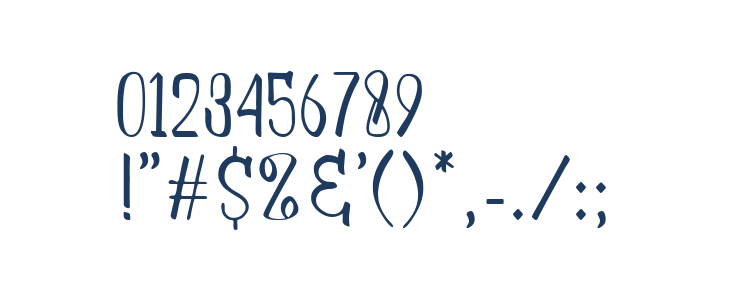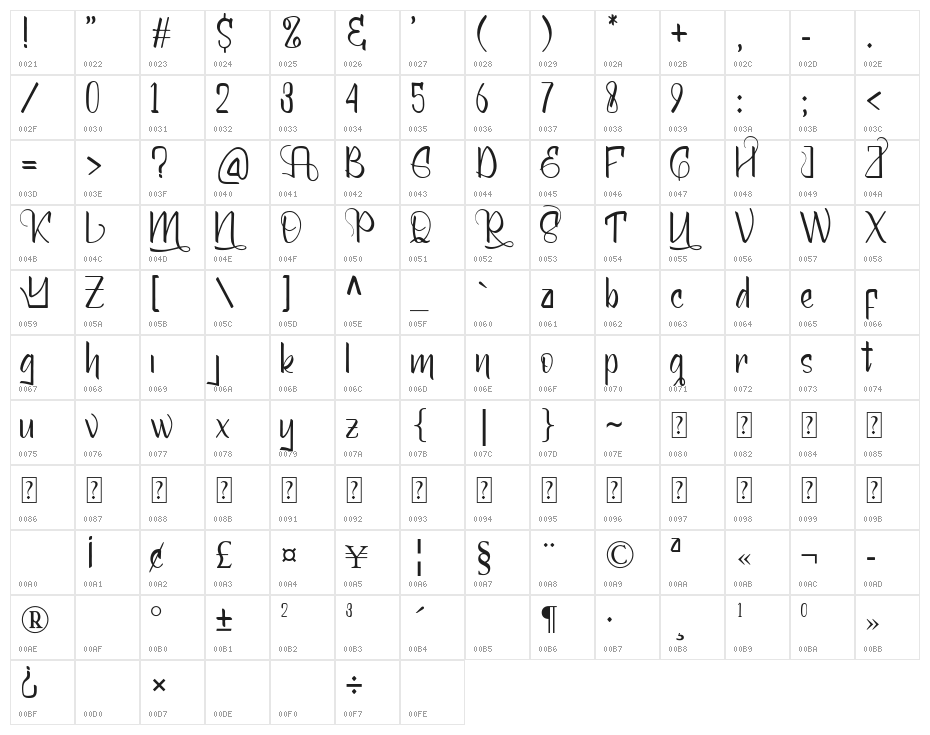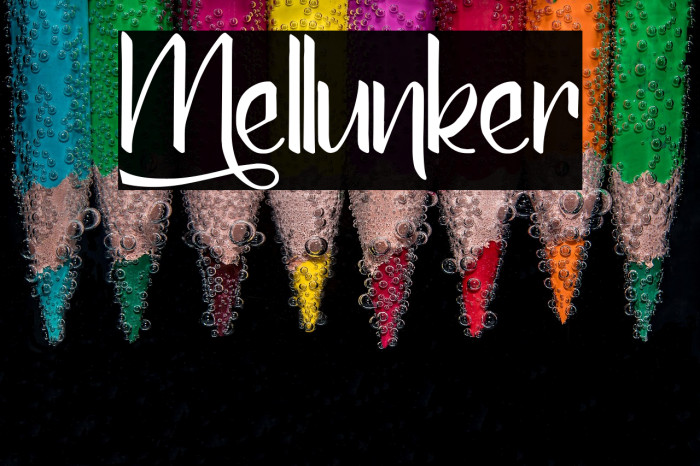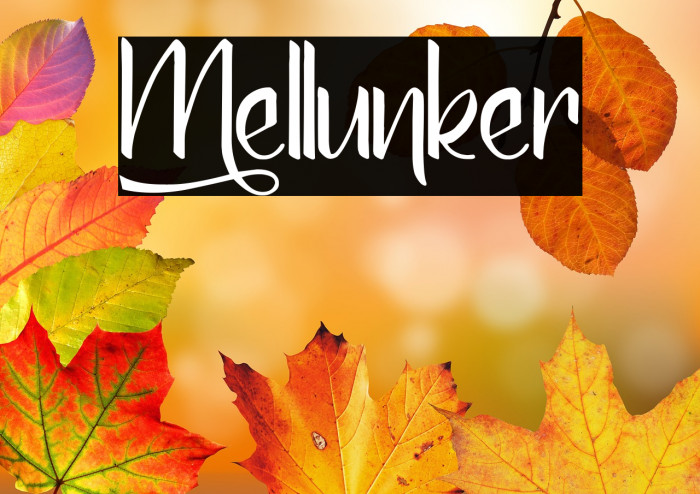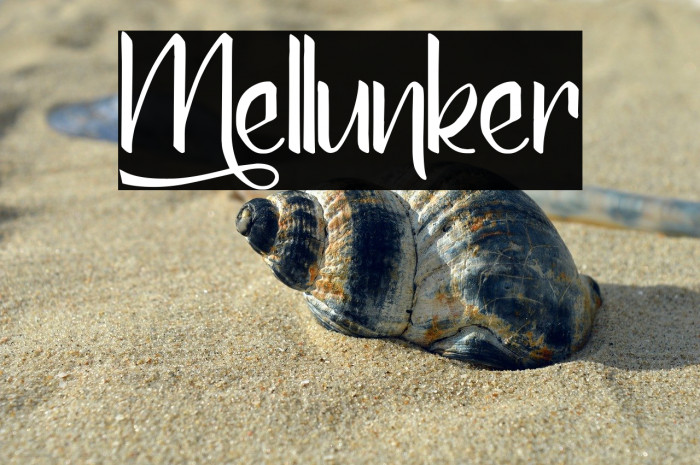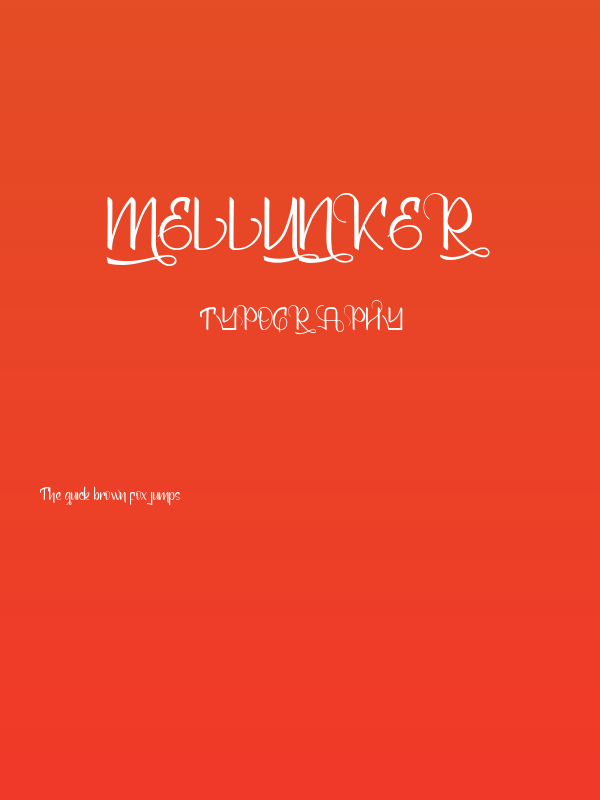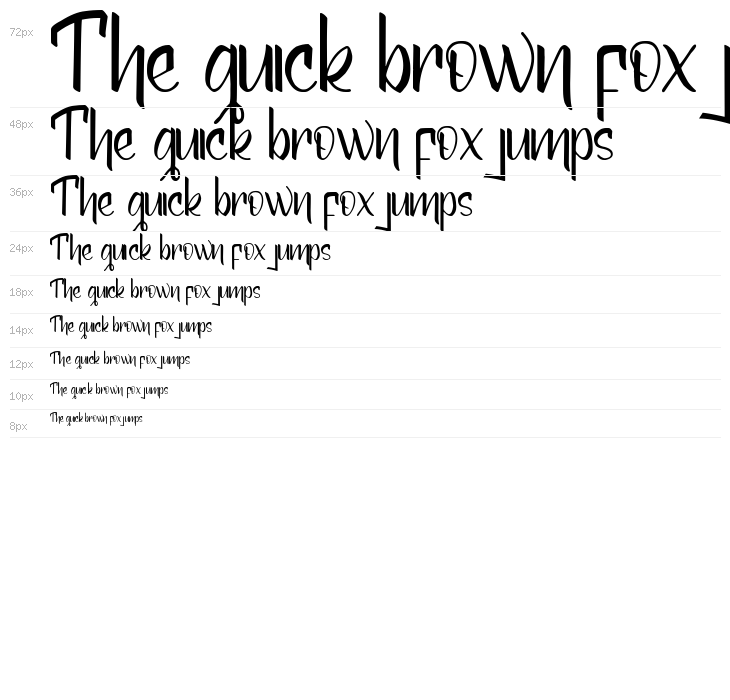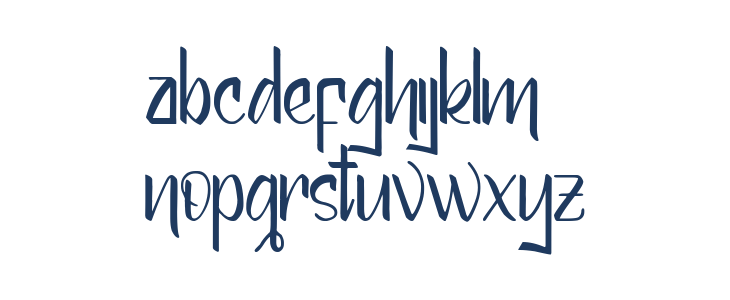
Mellunker Font
Mellunker Description
This font features a unique and artistic design, characterized by its flowing and interconnected strokes. The uppercase letters exhibit a decorative flair with swirls and loops that add a sense of elegance and movement. The lowercase letters maintain a similar style, with a slightly more restrained approach, ensuring readability while retaining the artistic essence. The numerals are bold and clear, matching the overall aesthetic. Special characters are creatively designed, integrating seamlessly with the rest of the font. This font's distinctive style makes it suitable for projects that require a touch of sophistication and creativity.